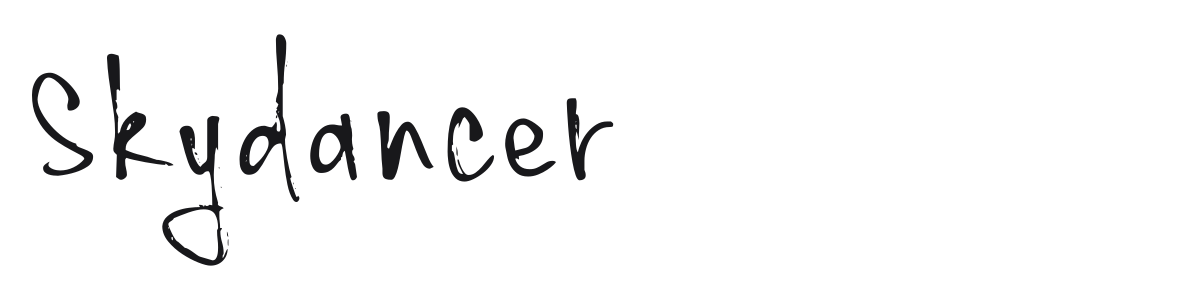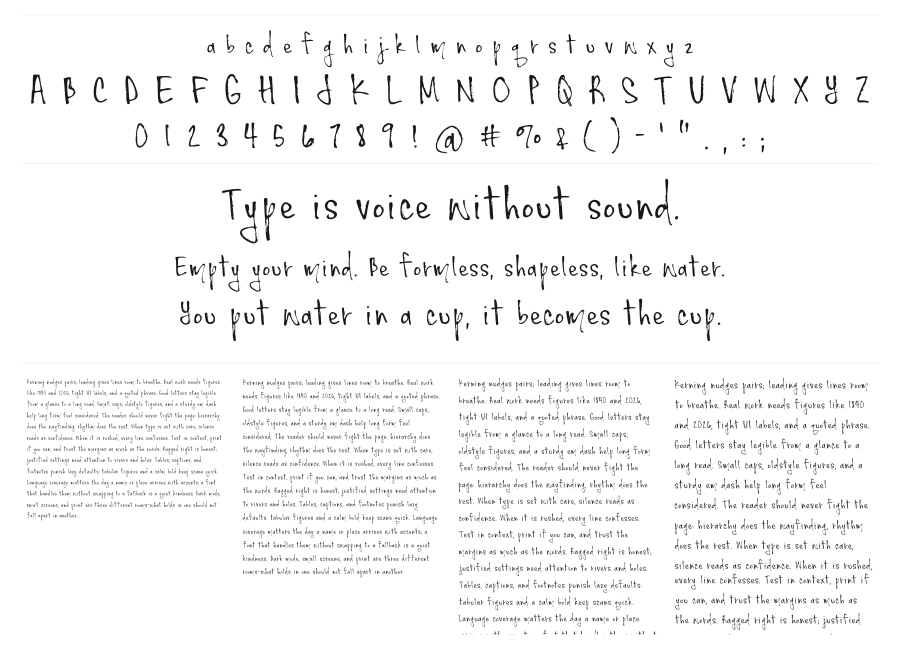
Skydancer
Skydancer is a casual handwritten script with thin, ink-textured strokes that feel genuinely pen-drawn rather than digitally polished. The rough edges and slight baseline irregularities give it an honest, personal energy that works well wherever an authentic human touch is needed. It reads best at large sizes where the texture stays visible.